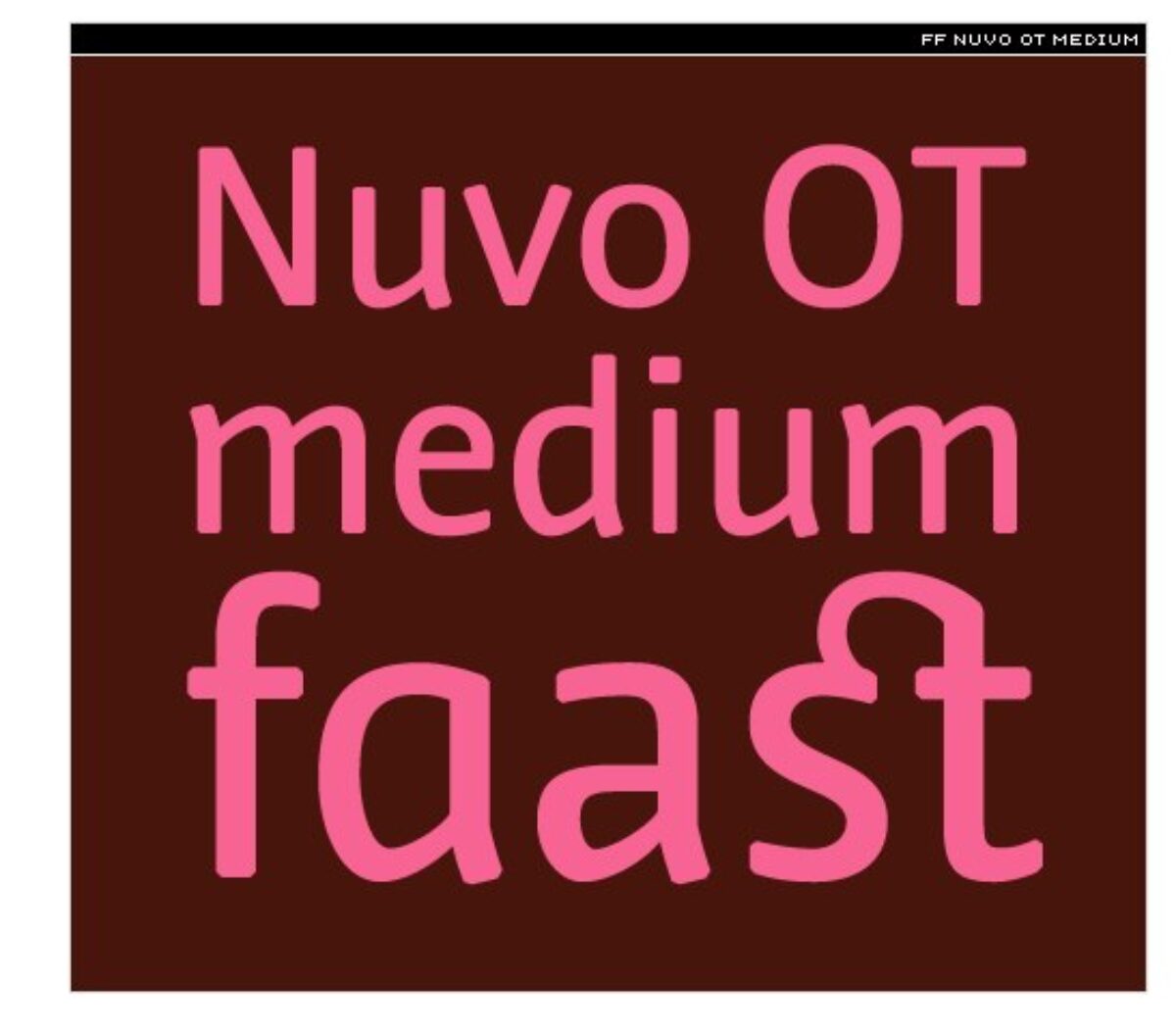
Ivo 30/12/2008 at 17:22 There’s a new FontFont available for free: FF Reminga OT Bold Italic by the great Xavier Dupré. The all-new OpenType FF Reminga is an improved version of an underused FontFont classic.
There’s a new FontFont available for free: FF Reminga OT Bold Italic by the great Xavier Dupré. The all-new OpenType FF Reminga is an improved version of an underused FontFont classic.